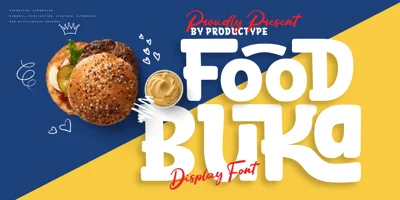
Food Buka Font
Food Buka Font delivers a warm and inviting typeface inspired by traditional street food culture and authentic culinary experiences. Please note that you must purchase this font for commercial use, though you can download it for free for testing purposes.
This appetizing font excels in various design applications including restaurant menu designs, food truck branding, culinary blog headers, cookbook covers, street food festival posters, local eatery signage, food delivery app interfaces, and ethnic cuisine packaging. Its friendly character makes it perfect for projects requiring approachable food-focused aesthetics with authentic cultural appeal.
Food Buka Font is exciting because it captures the essence of bustling food markets and neighborhood eateries through letterforms that evoke the warmth of home cooking and community dining experiences. The font embodies the spirit of sharing meals and cultural traditions while maintaining excellent readability for menu items and food-related content across different applications.
The Food Buka Font family includes multiple flavorful variations: Regular, Bold, Light, and Condensed styles. Some versions feature decorative elements inspired by cooking utensils, spice motifs, and cultural food symbols that enhance the authentic culinary aesthetic. These family members provide designers with comprehensive options for creating appetizing and culturally rich food-themed compositions.
Whether you're developing restaurant branding, food packaging, or culinary content, Food Buka Font offers exceptional warmth and cultural authenticity. This font transforms ordinary text into delicious visual experiences that celebrate food culture and community dining with distinctive character that defines contemporary food industry design excellence.